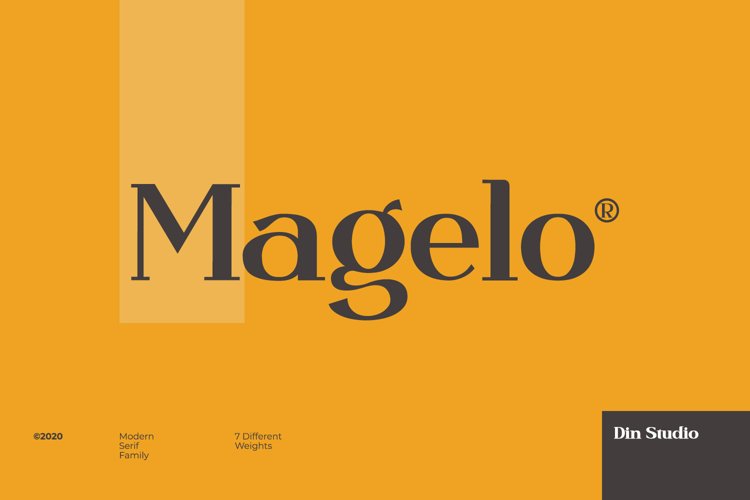
Are you ready to make your branding bold? Looking for a statement font that will engage your audience and make your branding stand out? Then we've got the answer.
Introducing Magelo - A Serif Font Family
With this package you will get many options to maximize your designs with stylish fonts. Magelo will delight and add brightness, modernity and elegance to wherever it is used. This font can be used for a host of different content needs and projects. It is perfect to be used on your website, for your social media branding, Pinterest banners, printed products, and more!
Inspire your audience, clients, or guests with this beautiful, statement font.